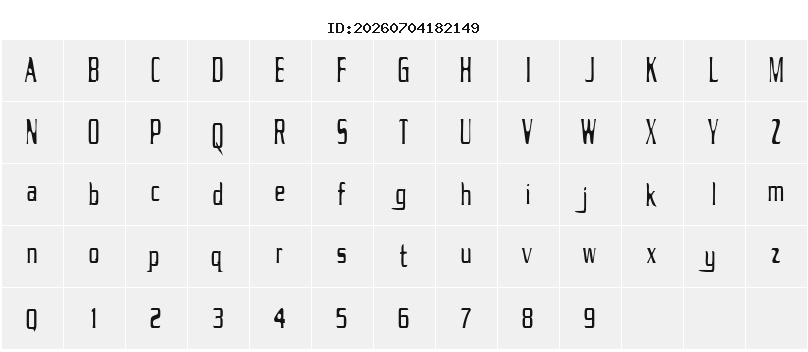
Drecknocratica Condensed Preview
• Font Name: Drecknocratica Condensed
• Font ID: Drecknocratica
• Full Font Name: Drecknocratica Condensed
• PostScript Name: DrecknocraticaCondensed
About Drecknocratica Condensed.ttf
Drecknocratica Condensed.ttf is a modern, elegant sans-serif font designed for ultimate readability and visual harmony. Perfect for branding, headlines, web design, and print materials.